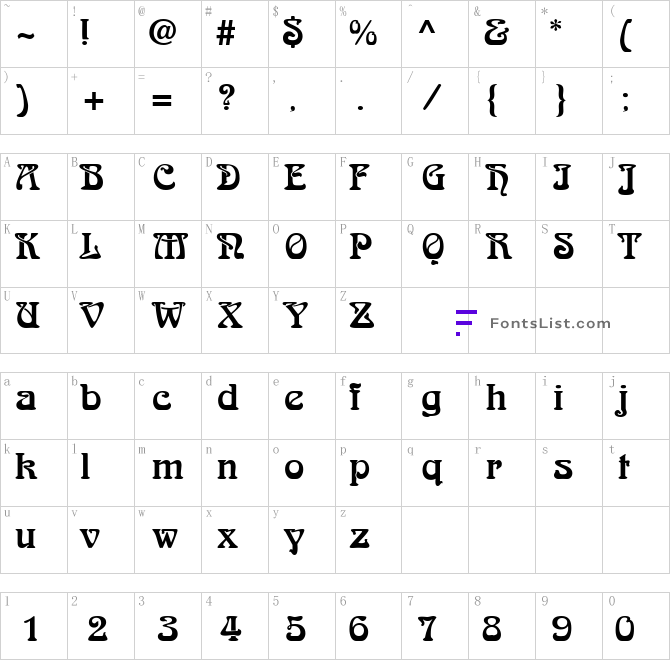
- Font Name:ArabikDB
ArabikDB-Normal.ttf is a very beautiful artistic font, ArabikDB-Normal.ttf is widely used in the design and printing of various books and pictures,ArabikDB-Normal.ttf has a strong visual impact,ArabikDB-Normal.ttf is a commonly used font in newspapers, magazines and books, and is used in posters, e-commerce Poster design, store design, logo design, font design and other fields.ArabikDB-Normal.